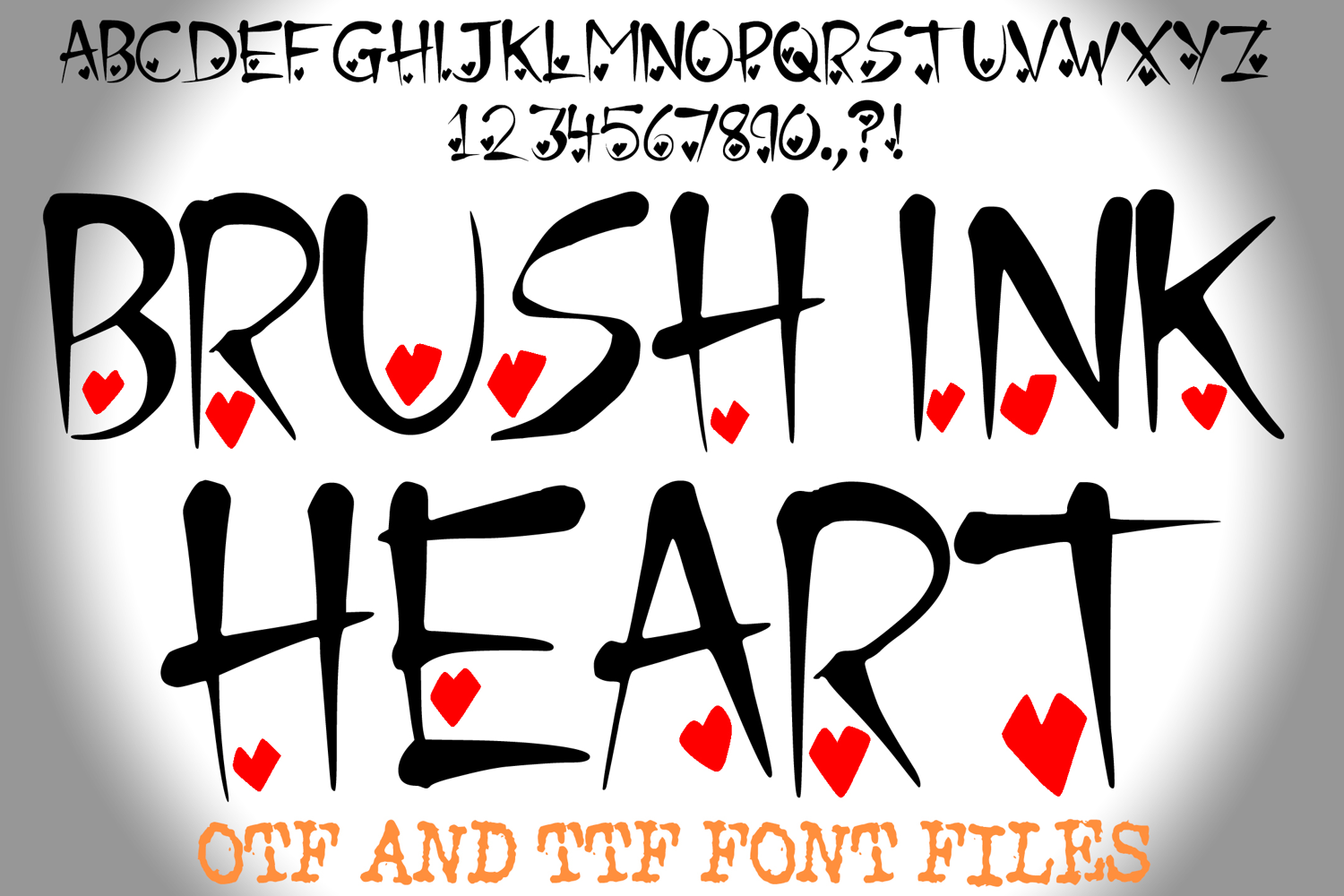
Brush Ink Heart Love Font Heart Valentines Calligraphy Typeface Letters by Squeeb Creative
Brush Ink Heart Love Font Heart Valentines Calligraphy Type
Elevate your creative projects with Brush Ink Heart Font, a sophisticated yet playful typeface that captures the essence of handmade artistry! This font features elegant, calligraphy-inspired brush strokes with variable line weights, giving it a truly authentic inked appearance. The standout feature is the delicate heart nested within every character, serving as a romantic anchor for each letter and number.
Designed with love in mind, this font is perfect for high-end Valentine’s Day cards, wedding stationery, and sentimental branding. The "inked" look provides a raw, organic texture that feels professional, ensuring your headlines stand out with a signature style.